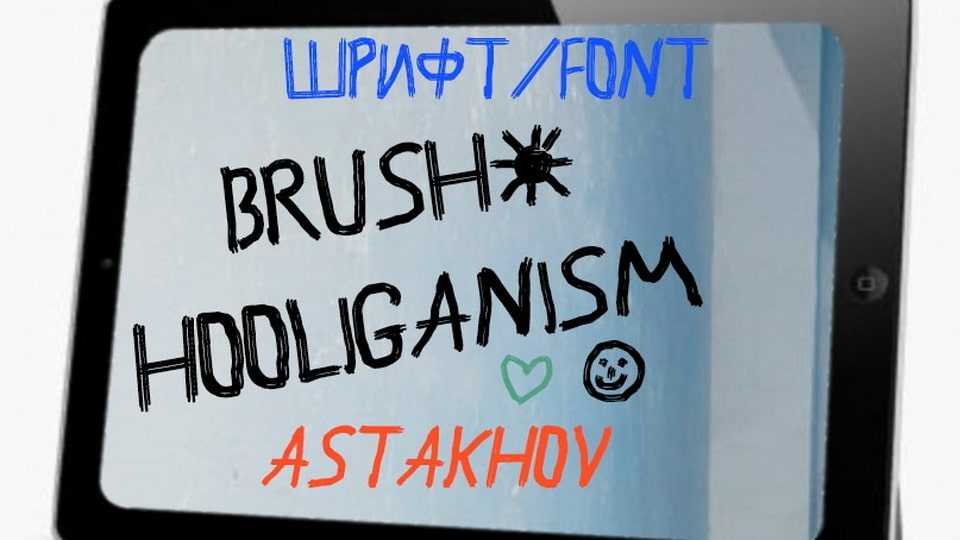
Download Astakhov Brush Hooliganism font, a raw and rebellious hand-painted typeface with a rough, imperfect edge with its bold strokes and gritty texture.
Designer: D’ Astakhov